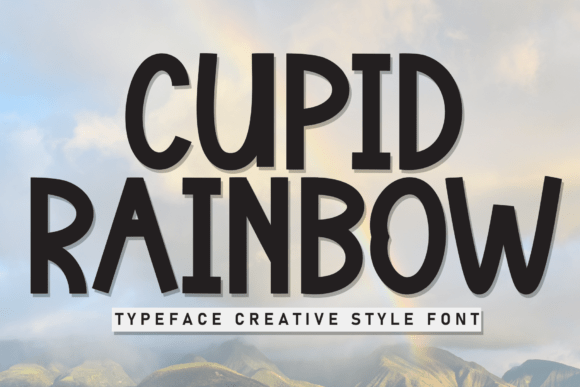
Cupid Rainbow Font: A Whimsical Handwritten Display Font
Are you looking for a font that can add a touch of warmth and playfulness to your design projects? Look no further than the Cupid Rainbow Font, a charmingly whimsical handwritten display font that exudes a warm, inviting demeanor. With its playful curves and delightfully buoyant finishes, this tasteful font is perfect for enriching every design with a pleasing element of fun.
A Perfect Typographic Companion
The Cupid Rainbow Font is a witty and heartwarming font that serves as a perfect typographic companion to enrich beloved keepsakes such as wedding invitations or greeting cards. Its unique blend of sweet and friendly nuances makes it an ideal choice for designers who want to impart a delightful splash of personality to any design project.
Whether you’re designing a wedding invitation, a birthday card, or a simple social media post, the Cupid Rainbow Font is sure to make your design stand out. Its playful and whimsical nature makes it perfect for a wide range of design projects, from formal events to casual social media posts.
Key Features of Cupid Rainbow Font
- Whimsical Handwritten Style: The Cupid Rainbow Font features a charmingly whimsical handwritten style that exudes a warm, inviting demeanor.
- Playful Curves and Buoyant Finishes: The font’s playful curves and delightfully buoyant finishes add a pleasing element of fun to every design.
- Sweet and Friendly Nuances: The font’s unique blend of sweet and friendly nuances makes it perfect for designers who want to impart a delightful splash of personality to any design project.
- Perfect for Wedding Invitations and Greeting Cards: The Cupid Rainbow Font is a perfect typographic companion to enrich beloved keepsakes such as wedding invitations or greeting cards.
Tips for Using Cupid Rainbow Font
- Pair it with a Simple Background: The Cupid Rainbow Font is a playful and whimsical font, so it’s best to pair it with a simple background that won’t distract from the text.
- Use it for Headings and Titles: The font’s playful and attention-grabbing nature makes it perfect for headings and titles.
- Add a Personal Touch: The Cupid Rainbow Font is perfect for adding a personal touch to your design projects, such as a wedding invitation or a birthday card.
Benefits of Using Cupid Rainbow Font
- Adds a Touch of Whimsy: The Cupid Rainbow Font adds a touch of whimsy and playfulness to every design.
- Perfect for a Wide Range of Design Projects: The font’s versatility makes it perfect for a wide range of design projects, from formal events to casual social media posts.
- Easy to Read: The font’s clear and legible design makes it easy to read, even at small sizes.
In conclusion, the Cupid Rainbow Font is a charmingly whimsical handwritten display font that exudes a warm, inviting demeanor. With its playful curves and delightfully buoyant finishes, this tasteful font is perfect for enriching every design with a pleasing element of fun. Whether you’re designing a wedding invitation, a birthday card, or a simple social media post, the Cupid Rainbow Font is sure to make your design stand out.
- What is the Cupid Rainbow Font?: The Cupid Rainbow Font is a charmingly whimsical handwritten display font that exudes a warm, inviting demeanor.
- What is the font perfect for?: The font is perfect for enriching every design with a pleasing element of fun, and is ideal for designers who want to impart a delightful splash of personality to any design project.